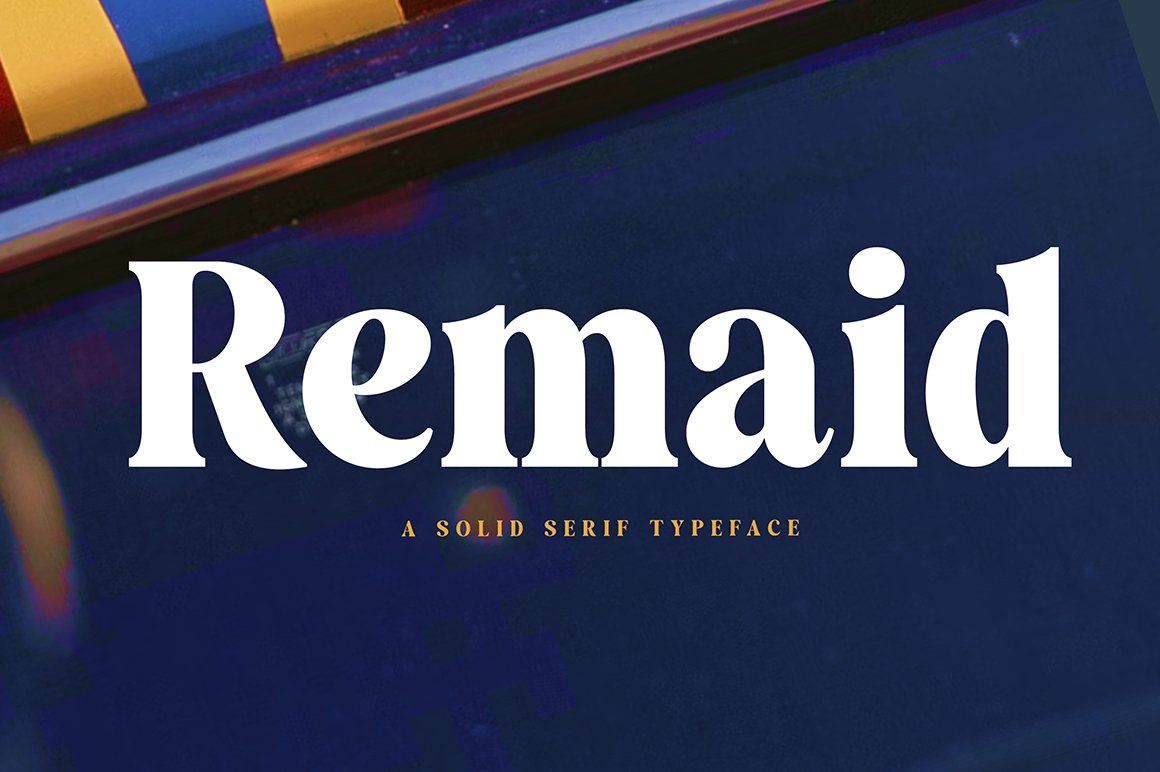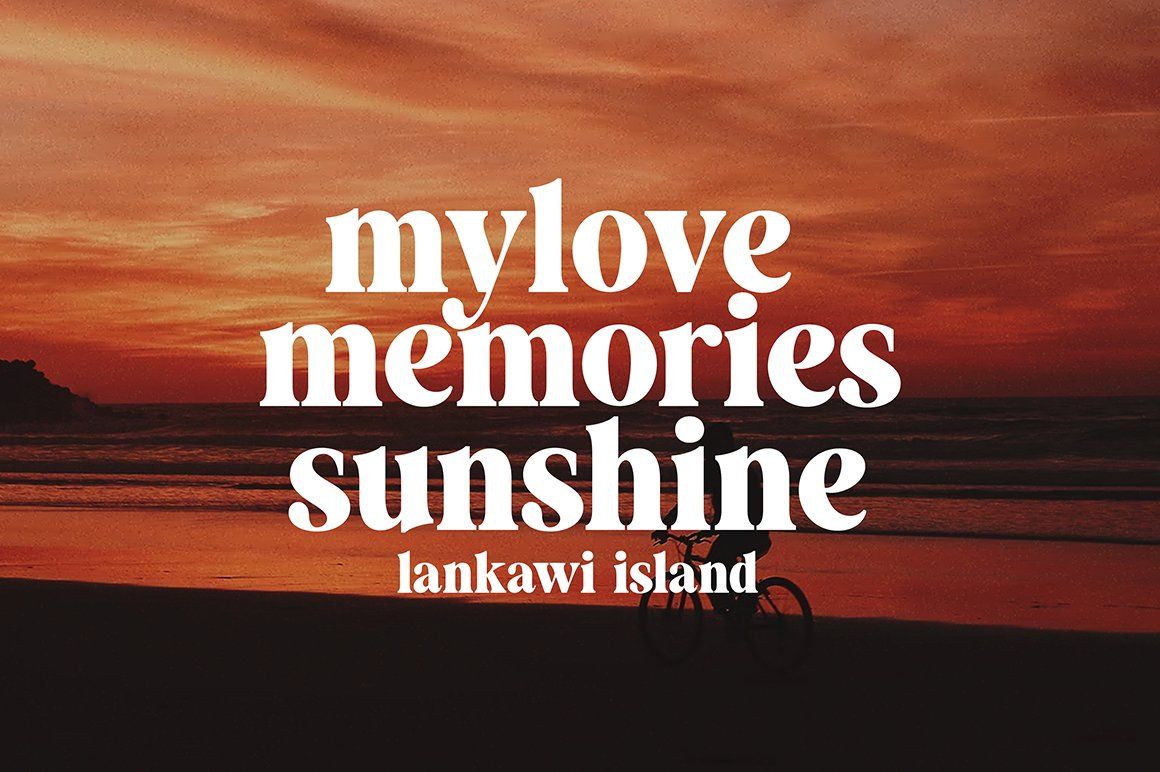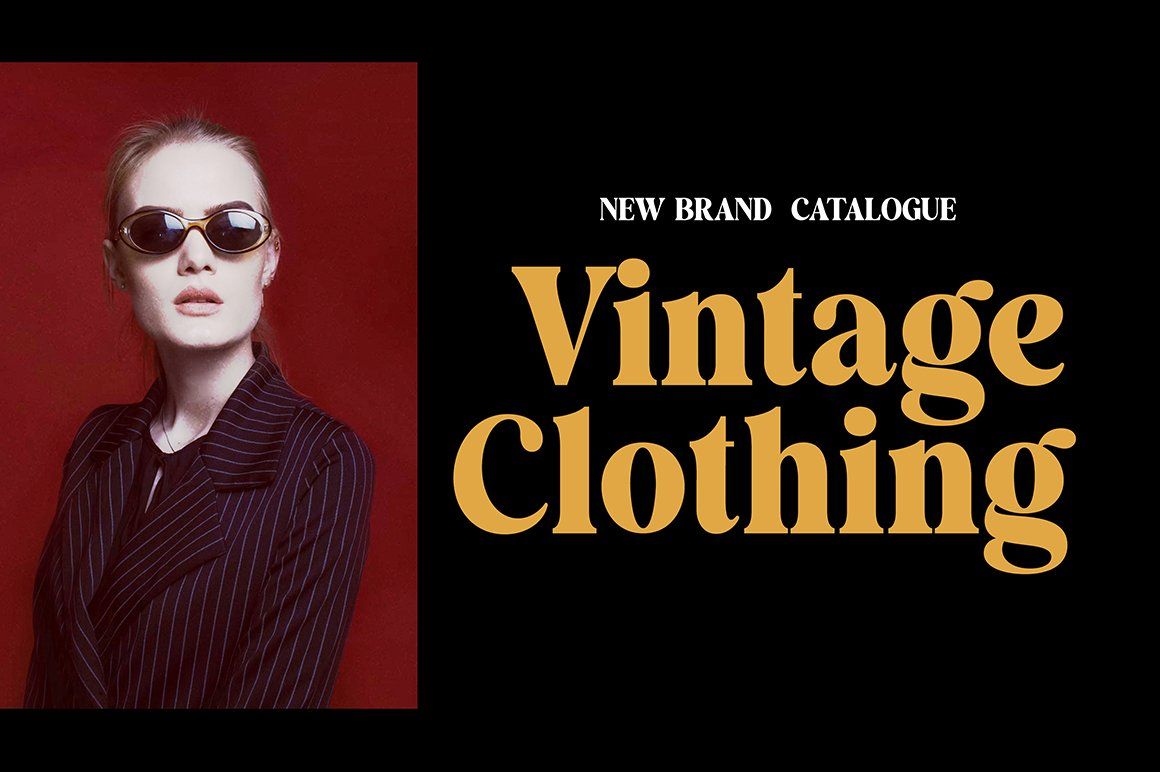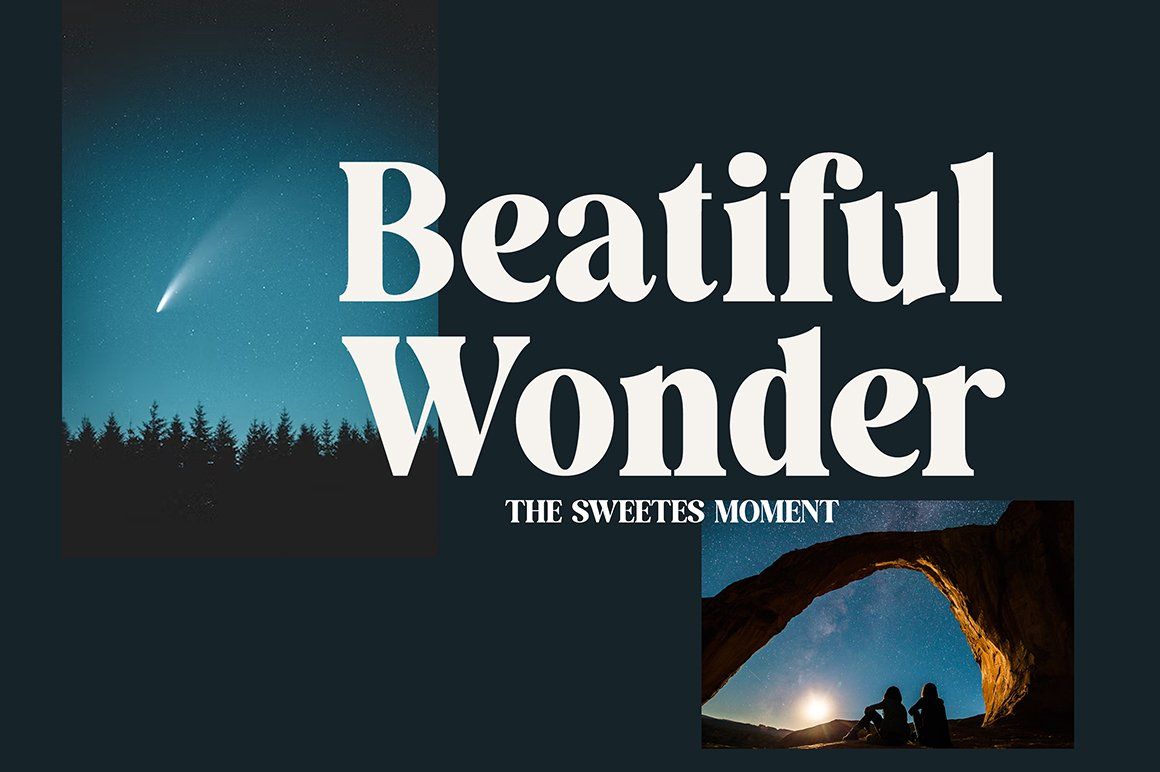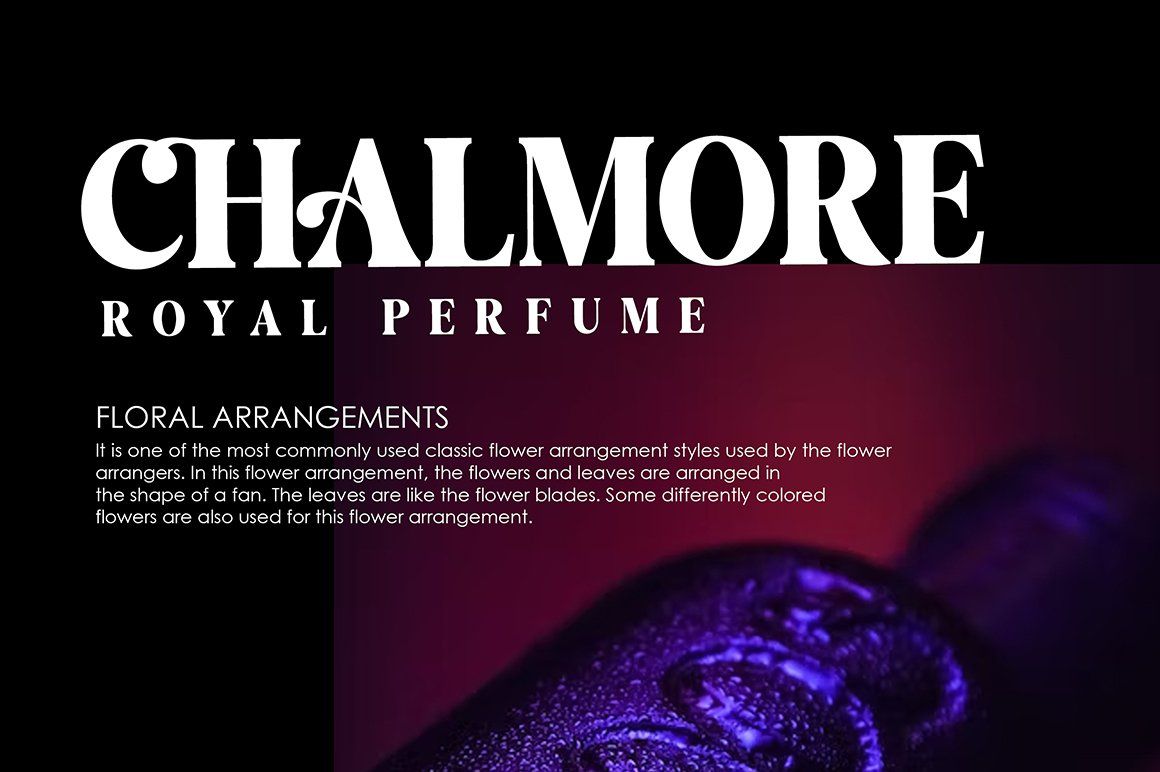
The Remaid Typeface font is an elegant serif typeface with subtle details. This neat font can add modern and fashionable brand appeal. This versatile display typeface has enough character for logos and branding, as well as headlines, apparel, bridal and more. Keep it classic, or decorate it with ornate alternatives to uppercase and lowercase glyphs!